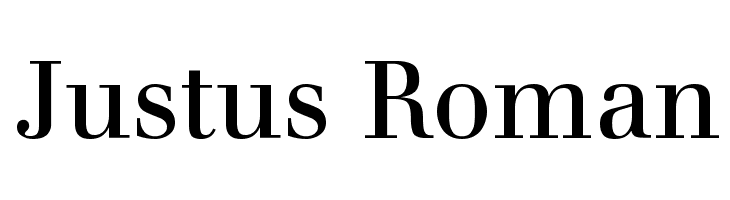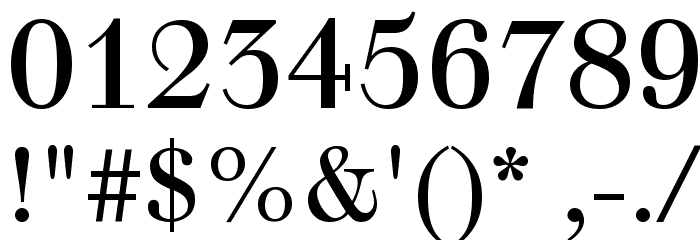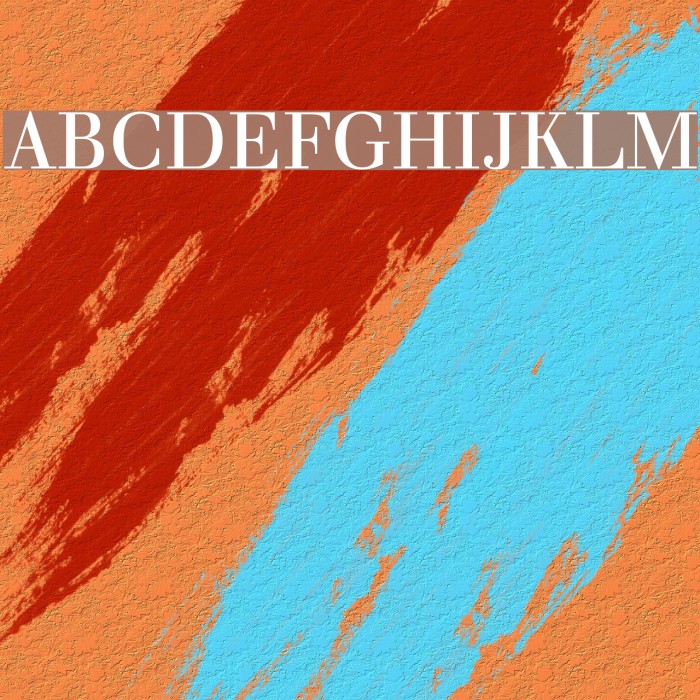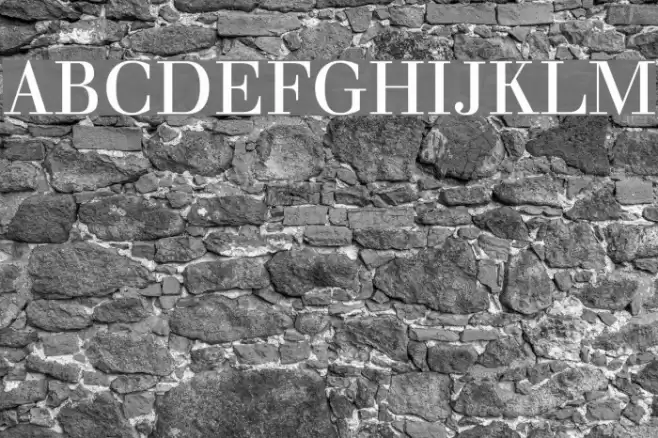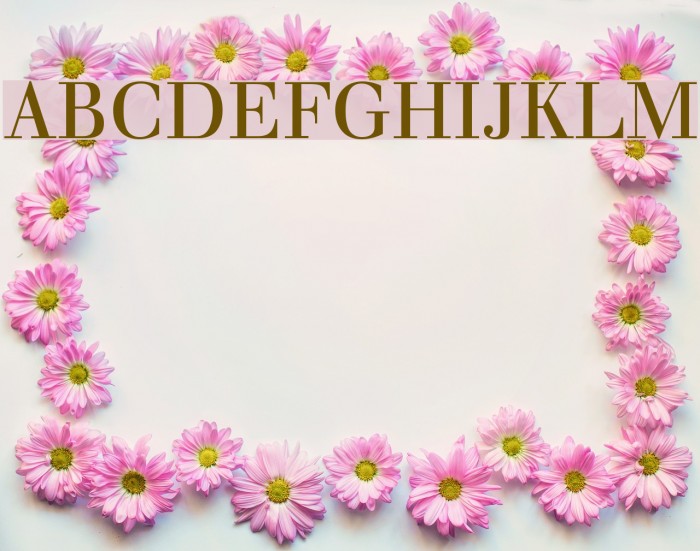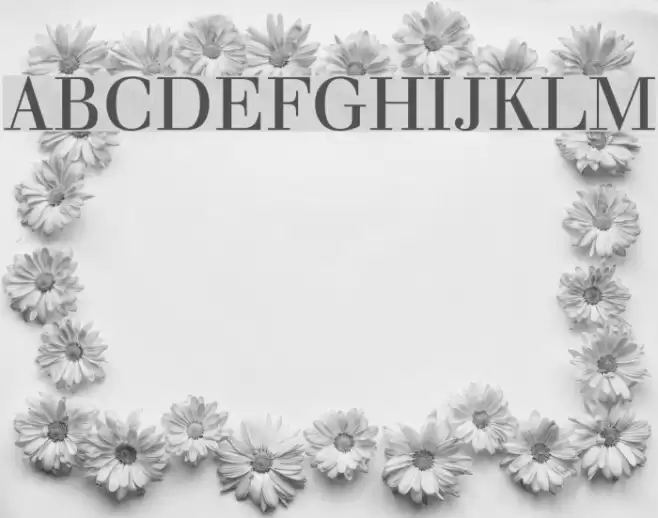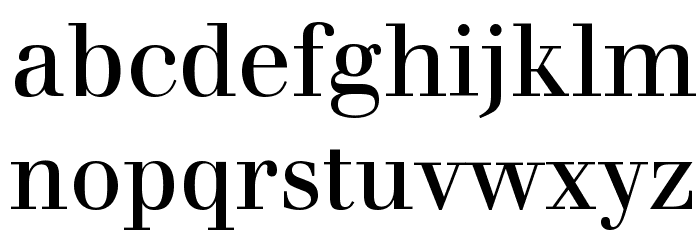
Justus Roman Font
Justus Roman Description
This font features a classic serif style with elegant and refined strokes. The uppercase letters are bold and commanding, while the lowercase letters maintain a consistent and harmonious flow. The numerals are clear and distinct, making them easy to read. Special characters are well-integrated, adding versatility to the font. The overall appearance is sophisticated, making it suitable for formal and professional applications. The contrast between thick and thin strokes is moderate, providing a balanced and visually appealing look.
| Overall Style | Classic |
| Use Case | Headlines, Body text, Logos |
| Proposed Projects | Ideal for editorial design, book covers, formal invitations, and branding materials. |